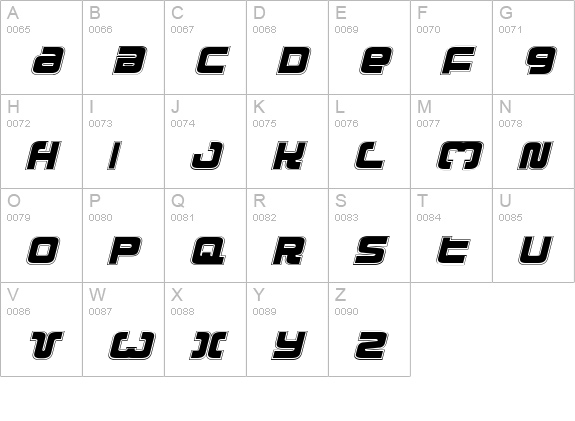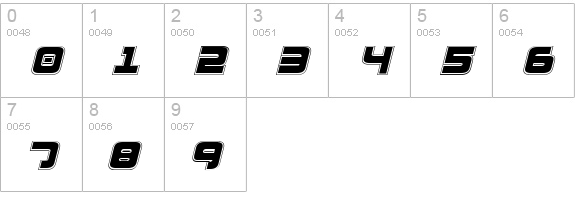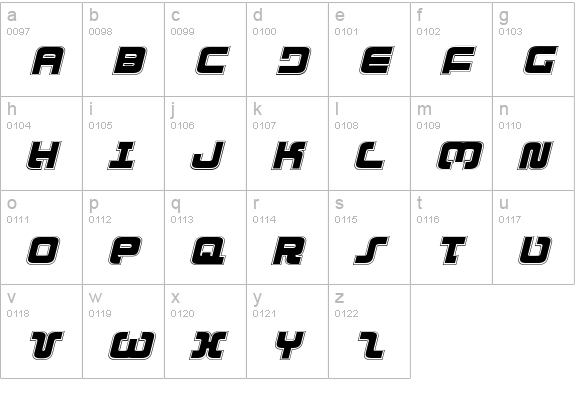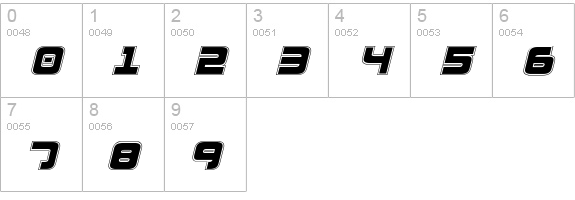
Exedore College Italic is a distinctive, italic variant in the Exedore typeface family \xE2\x80\x94 well suited to design and typography projects.
Introducing Exedore College Italic font, a versatile and elegant typeface perfect for adding a touch of sophistication to your projects. This modern and sleek font features clean lines and a stylish italic design that exudes professionalism and class. Exedore College Italic font is a must-have for designers, creatives, and professionals looking to elevate their work with a touch of refined elegance. Whether you're designing a logo, creating marketing materials, or working on a branding project, this font will surely make a statement. The best part? Exedore College Italic font is available for free download at FontsMarket.com. Simply visit the website and add this stunning font to your collection without any cost. Don't miss out on the opportunity to enhance your designs with this premium typeface that is both modern and timeless. Download Exedore College Italic font today and take your projects to the next level!